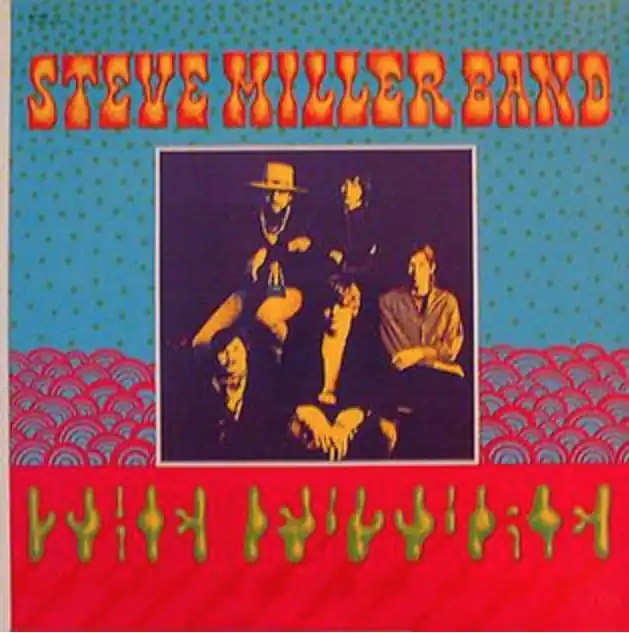
Seeing a psychedelic font takes you straight to the 1960s, with its abstract, swirling patterns, and very loud colors. The vividness and intensity of 1960s psychedelic fonts recall the hallucinations that someone can experience from being under the influence of a drug.
In graphic design, such fonts allow designers the creative freedom to become experimental and push the boundaries of their visual art. More than just a mere blast from the past, these characters add a unique feel to your projects that mesmerizes both your clients and their clients alike.
Read on for a deep dive into psychedelia in typography.
The History of the Psychedelic Font
To really understand what we’re dealing with here, we have to examine the broader psychedelic art movement from several decades ago. If we had to put our finger on its point of origin, it would be the late 1960s counterculture movement that lasted until approximately the mid-1970s. Psychedelic art itself was part of the broader concept of psychedelia.
Psychedelia is best thought of as a subculture that flourished during this time. It was the pursuit of reaching a state of altered consciousness, achieved via taking drugs like mescaline (found in cacti like the peyote) and LSD, which was then depicted in art and music. From this concept of the psychedelic experience, it’s easy to understand why some of its traits, like intensely vibrant colors and surreal imagery, are prevalent in graphic design and typography.
To see what we mean, just have a glance at some examples of what a psychedelic font looks like:
In the late 1950s–after America and its Allies had won the second World War–the post-war era began in earnest. In terms of art and culture, the Beat Generation of writers like Allen Ginsberg and Jack Kerouac came to prominence. In their writings, which became popular among the youth of this post-war generation, they detailed their experiences with drugs like Benzedrine and Marijuana. Then, by the 1960s, advocates of so-called consciousness expansion, like Timothy Leary and Aldous Huxley, promoted the use of LSD and additional drugs in their own writings.
The result of this popularization and push of drug use in literary circles was the creation of a lifestyle centered around psychedelia, starting in the late 1960s in California. San Francisco and Berkeley were particular hotspots for this nascent movement. For example, the infamous Summer of Love in 1967 is seen by many as solidifying the launch of this subculture into the mainstream until it faded out in the mid-1970s.
One of the lasting legacies of this flash-in-the-pan phenomenon was the rooting of the word “psychedelic†in our modern language. Besides being used for a design asset like a psychedelic font, the word itself has come to mean so much more than just drug use or the subculture of altered consciousness.
Today, anything that even loosely calls to mind images seen in drug-induced hallucinations, like vivid colors and abstract designs, can be referred to as “psychedelic.â€
Interestingly, the word was coined in 1956 by English psychiatrist Humphry Osmond. His goal was to develop an alternative word for hallucinogenic drugs within the context of using these drugs for psychotherapy. He and Huxley were friends, and in correspondence between the two, Osmond used the word for the first time.
By the late 1960s, graphic artists were already experimenting with the psychedelic font in various mediums, such as posters for rock musicians of the time and even in corporate advertising. What’s really cool is that these graphic designers’ artworks were inspired by more traditional design trends that we’ve already covered here on the blog:
When you think about it, it’s not much of a stretch that these well-established movements influenced the development of psychedelic art. Sure, pop art developed at the same time, thanks to people like Andy Warhol, but Art Nouveau and Dadaism emerged in entirely different eras. All three were avant-garde for their time, which meant that they rebelled against the established design norms of their peers. In the same way, this hallucinogenic take on visual art was a complete 180-degree turnaround from the design of the post-war era.
When you look at the trippy typefaces in posters for artists like The Grateful Dead and Herbie Hancock, you immediately notice traits like:
- Heavily saturated colors
- Stark contrast
- Extremely ornate lettering
- Weird iconography
- Collage components
- Solid symmetry
- Distortion
Check out additional examples of these vintage psychedelic fonts to better appreciate their features:
While this movement began in pop culture, the corporate world quickly caught on when it saw how popular it had become. Never an industry to squander a moneymaking opportunity, corporations began incorporating the psychedelic poster font in some of their ads.
For example, General Electric began to showcase some of New York designer Peter Max’s clocks in their ads. Their taglines promoted how Max’s clocks transpose time straight into fantastical colors. Then, we have Campbell’s Soup, which published posters that promised to “turn your wall souper-delic.†In these groovy posters, the company used bizarre fonts, vivid colors, striking contrast, curvilinear strokes, and two hippie children. It should also be noted that Andy Warhol, of pop art fame, was himself famous for using Campbell’s soup cans in his legendary artworks.
Like any good subculture member, be sure to experiment with the endless options at your disposal here. Mix and match intense and saturated colors, curvilinear strokes and shapes, and vibrations and distortions to create typography that will bend the minds of your audience and clients alike.